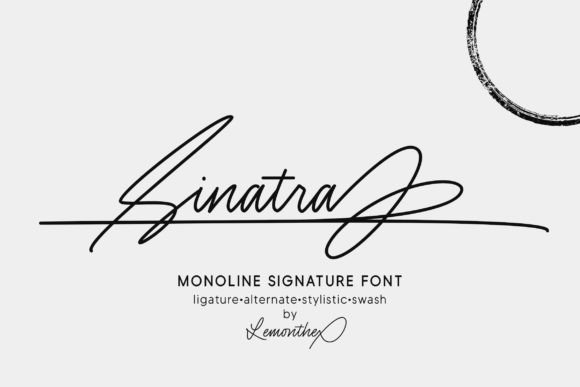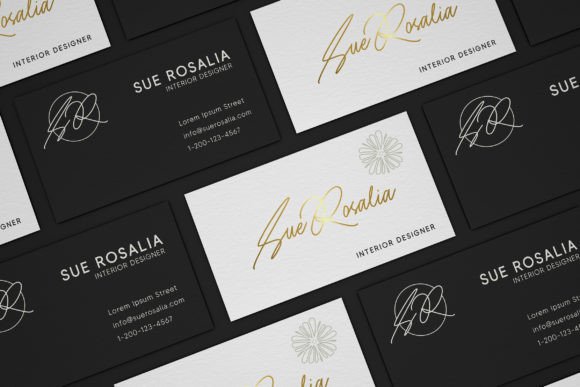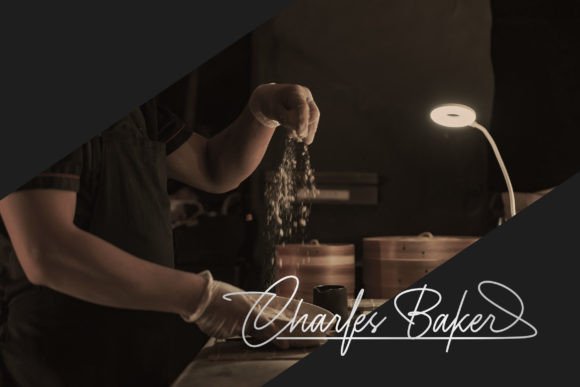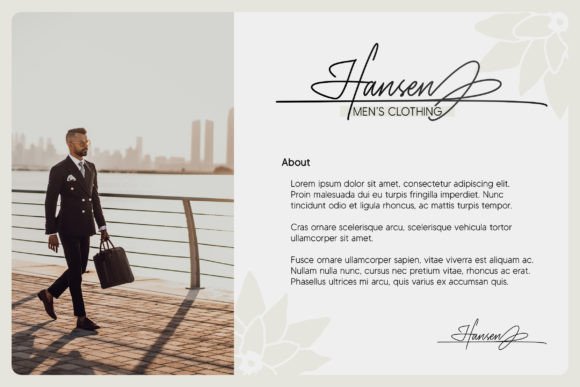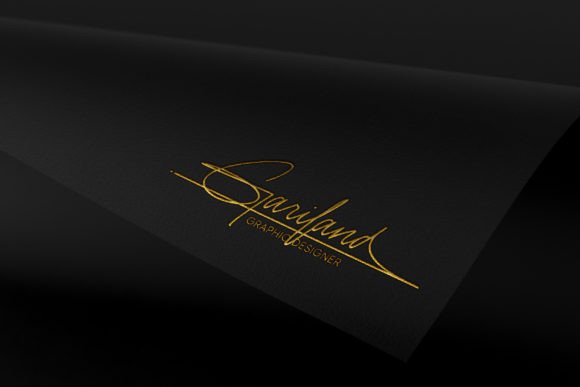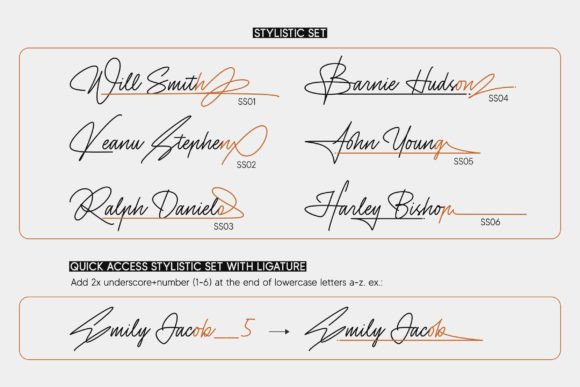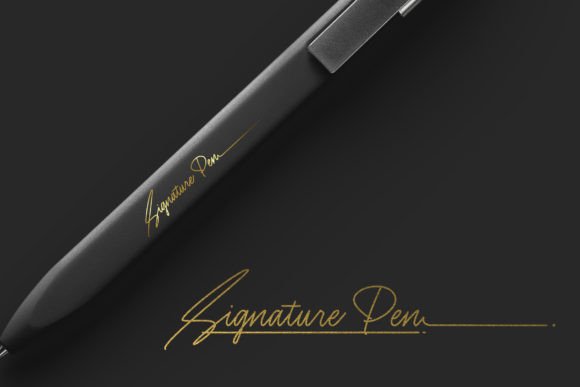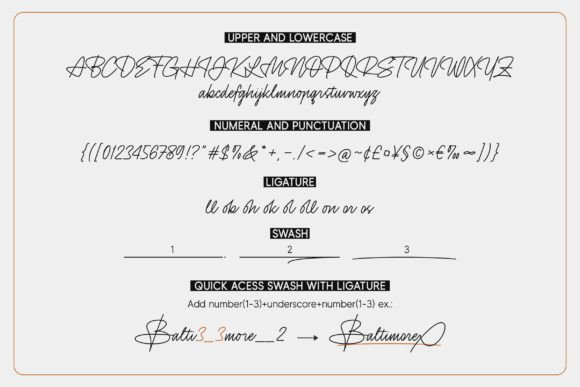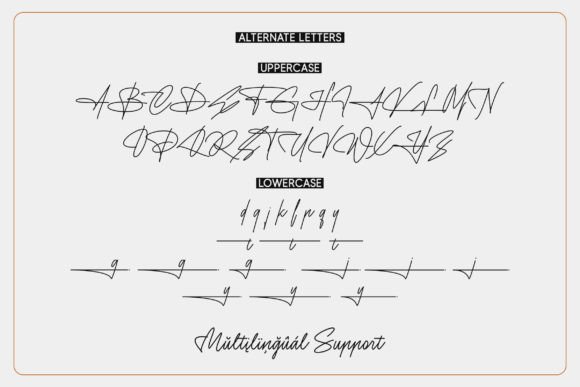
Sinatra Font
An Elegant Monoline Signature Typeface
Sinatra is an elegant signature font crafted to bring sophistication and style to any creative project. With its monoline strokes and smooth flow, this font feels modern, clean, and refined. Whether you’re designing logos, branding materials, or personal stationery, Sinatra helps your work stand out with a polished, professional look.
Its thin, graceful lines make it perfect for projects that need a subtle, luxurious touch.
Sinatra is a font you’ll love to use again and again. It’s ideal for logos and branding that need an upscale, personal feel. The monoline style and flowing letters give any brand a fresh and elegant appearance.
For invitations, Sinatra adds a romantic and timeless vibe. Use it on wedding invitations, save-the-date cards, and thank you notes to create designs that feel warm and memorable.
This font also works beautifully on product labels, photography watermarks, and social media graphics. Its thin strokes and signature look give every piece a cohesive, high-end finish.
Sinatra is also perfect for quotes, business cards, and custom gifts. The clean lines make your text easy to read while still feeling sophisticated.
Even with its delicate details, Sinatra remains clear and legible in any size. Balanced spacing and smooth connections between letters keep your text tidy whether you’re designing large headlines or small captions.
For a modern, polished layout, pair Sinatra with a clean sans-serif font. Use Sinatra for titles and highlights, and the sans-serif for supporting content. This combination feels organized and professional while showcasing the script’s elegance.
To highlight Sinatra’s monoline style, use light backgrounds and neutral color palettes. Shades like ivory, soft gray, and blush pink help the script stand out without overwhelming your design.
When creating logos or invitations, consider adding subtle flourishes or simple icons to enhance the handwritten feel.
On social media, embrace white space so your text remains the focus and your visuals stay clean and fresh.
Think about the mood you want to share. Sinatra is perfect for designs that should feel elegant, modern, and timeless.
Sinatra isn’t just another script font—it’s a creative tool that elevates every project with style and personality. From professional branding to personal keepsakes, this font adapts easily to any design and adds a polished finish to your work.
Adding Sinatra to your font collection means you’ll always have a versatile, beautiful option ready to use. Whether you’re creating logos, invitations, or social media content, this font helps every project feel special and unforgettable.